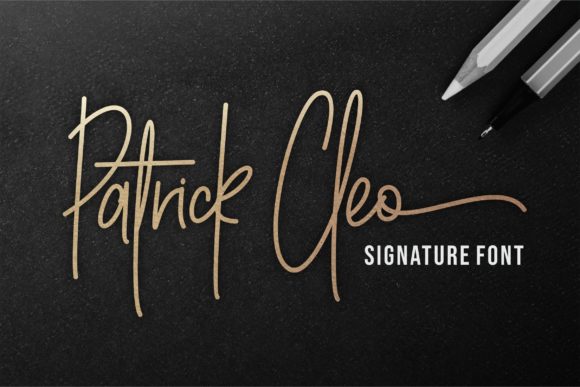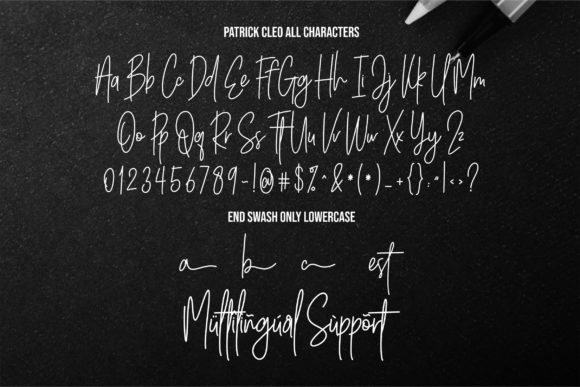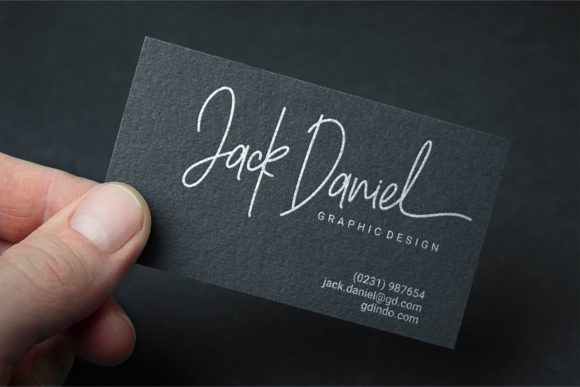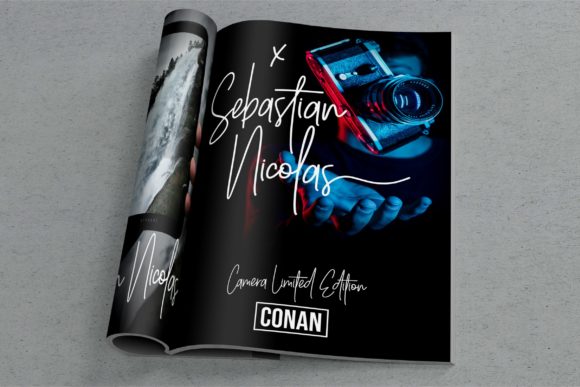
About Patrick Cleo Font
Patrick Cleo is an elegant and flowing handwritten font. It is PUA encoded which means you can access all of the glyphs and swashes with ease! It features a varying baseline, smooth lines, gorgeous glyphs and stunning alternates.
Fall in love with Patrick Cleo’s incredibly versatile style and use it to create gorgeous wedding invitations, beautiful stationary art, eye-catching social media posts, and much more!